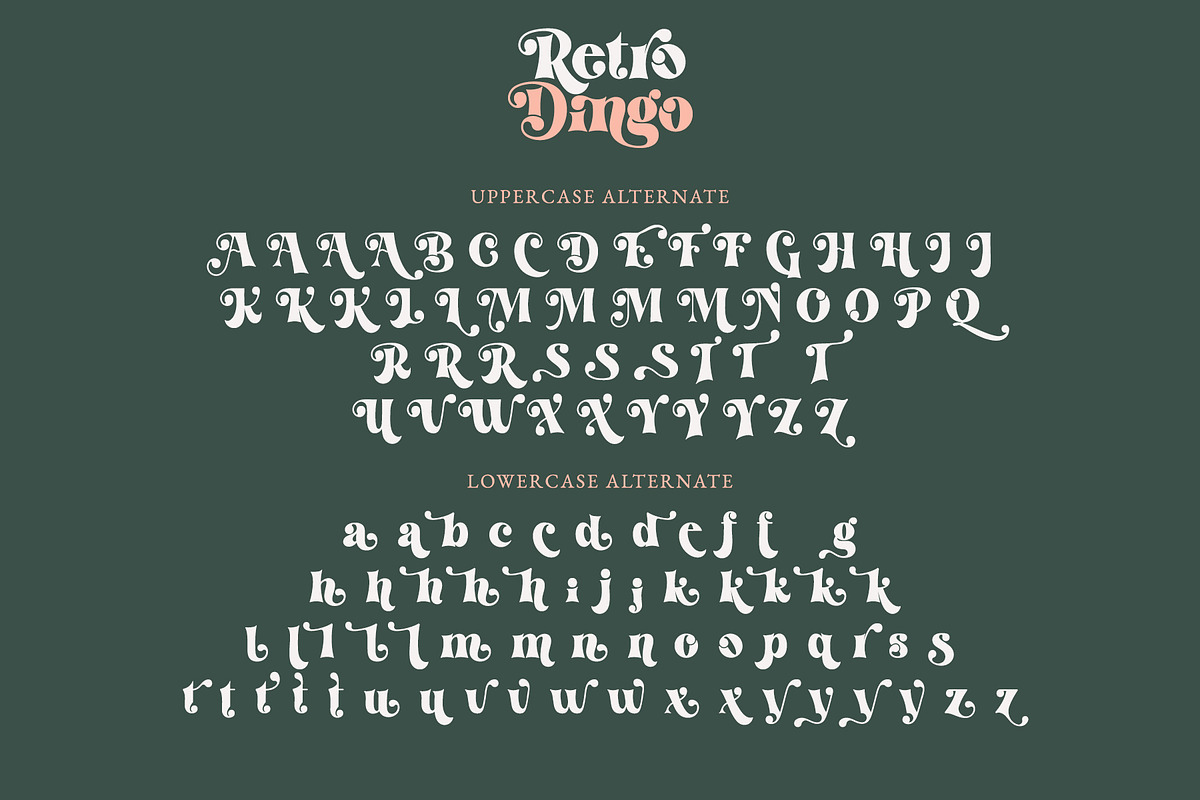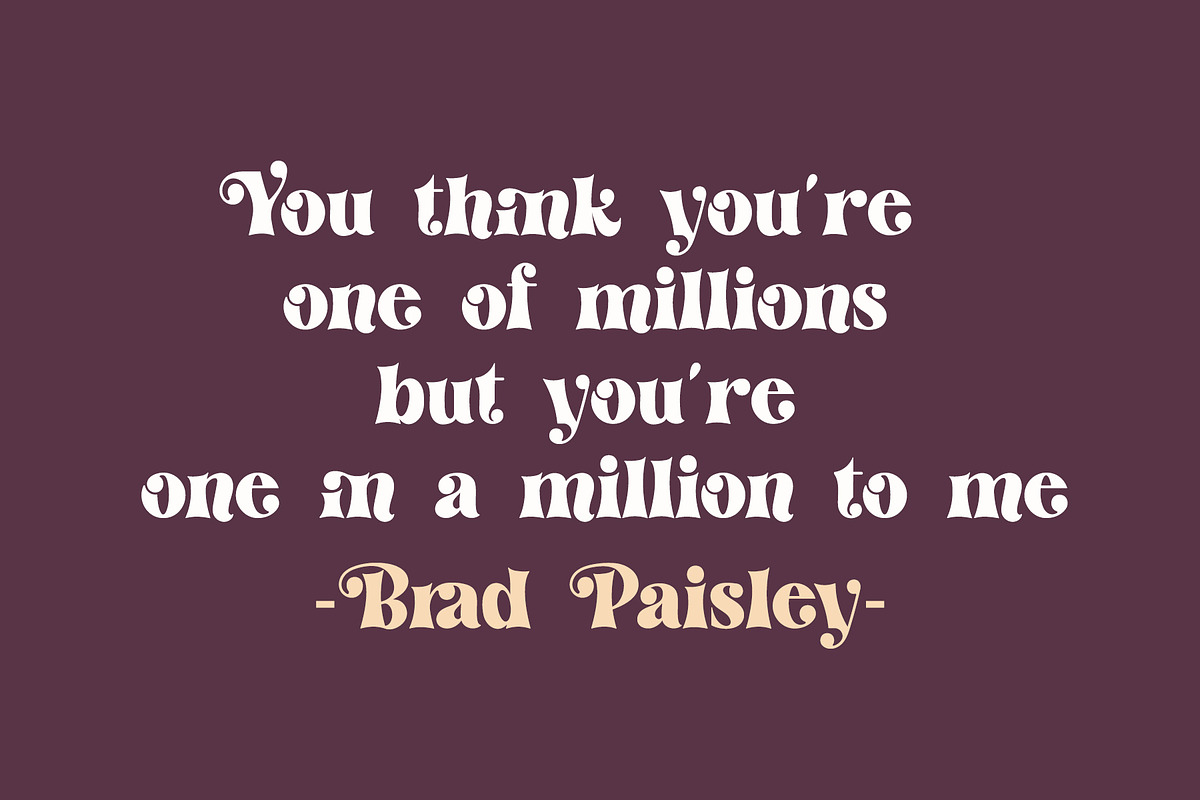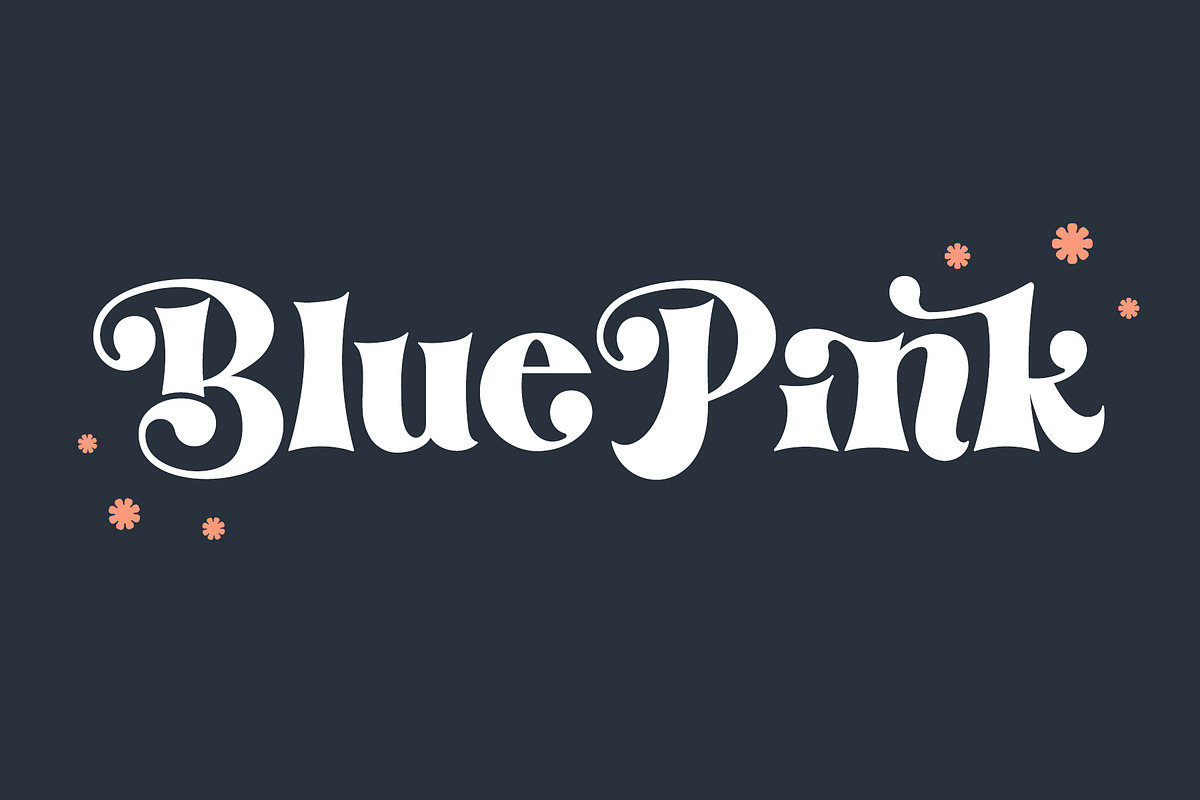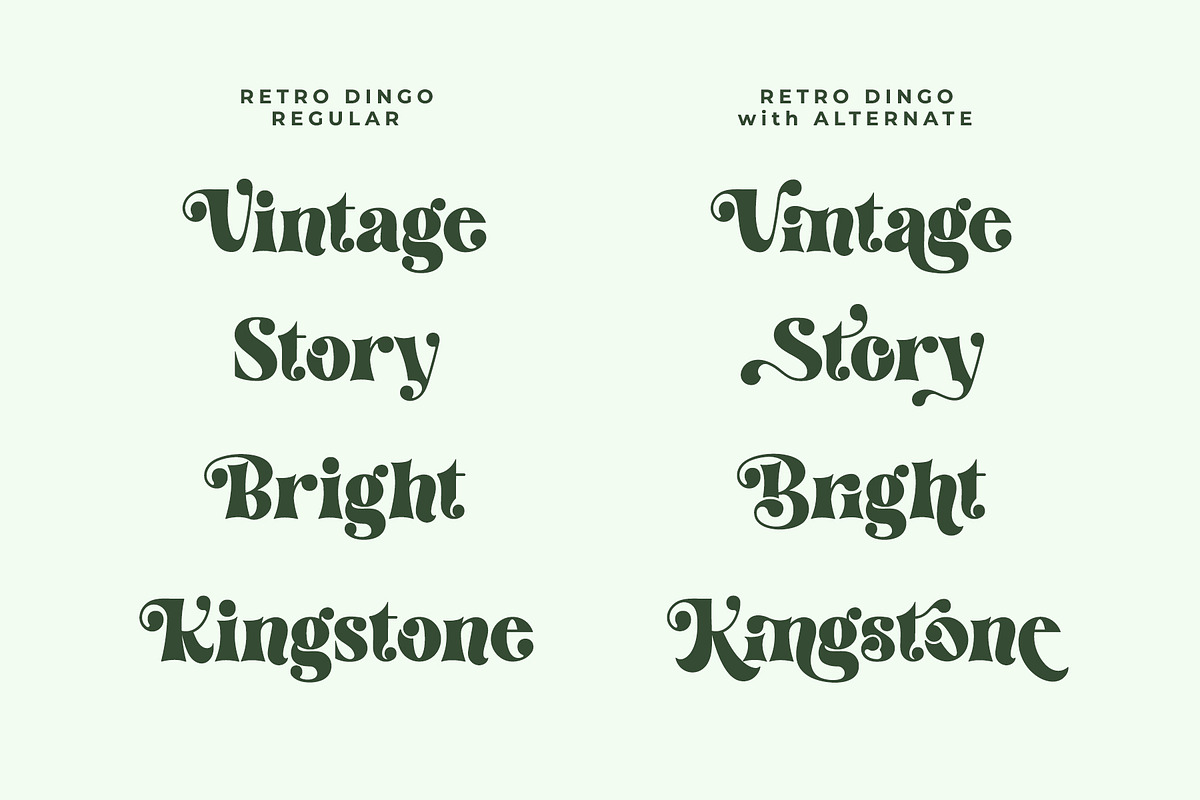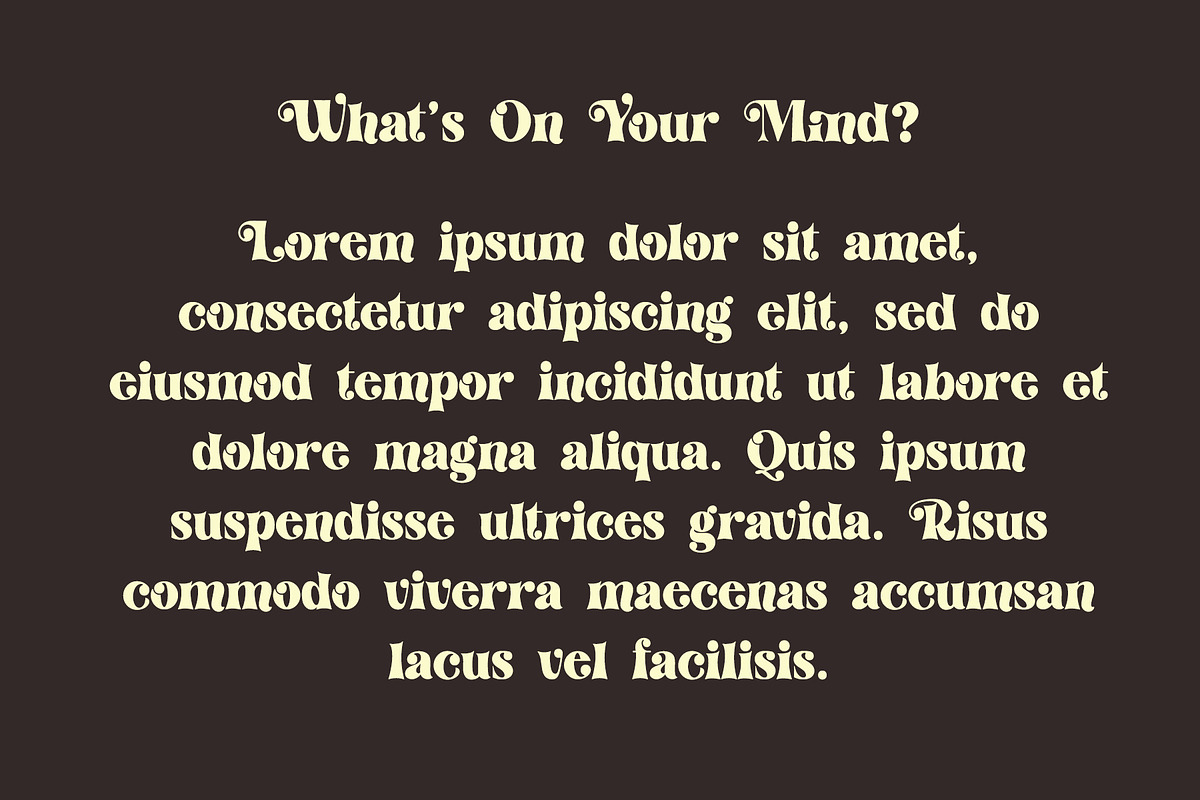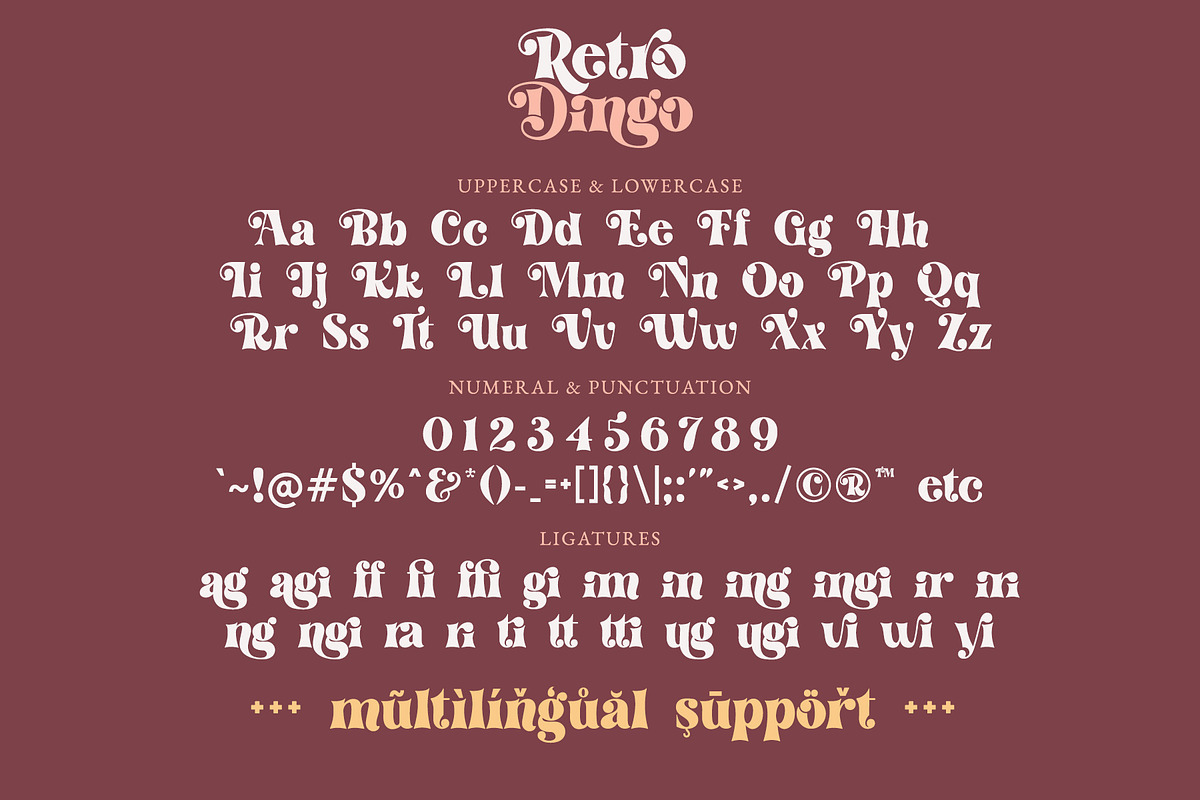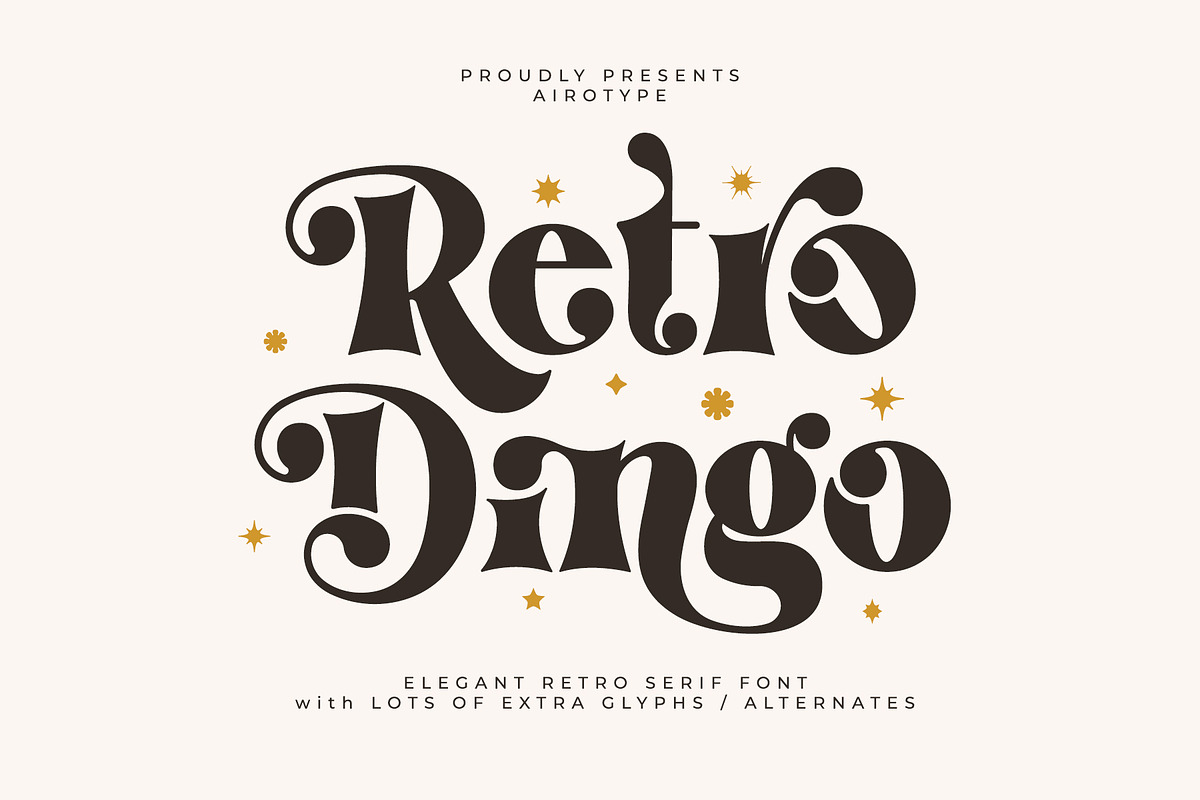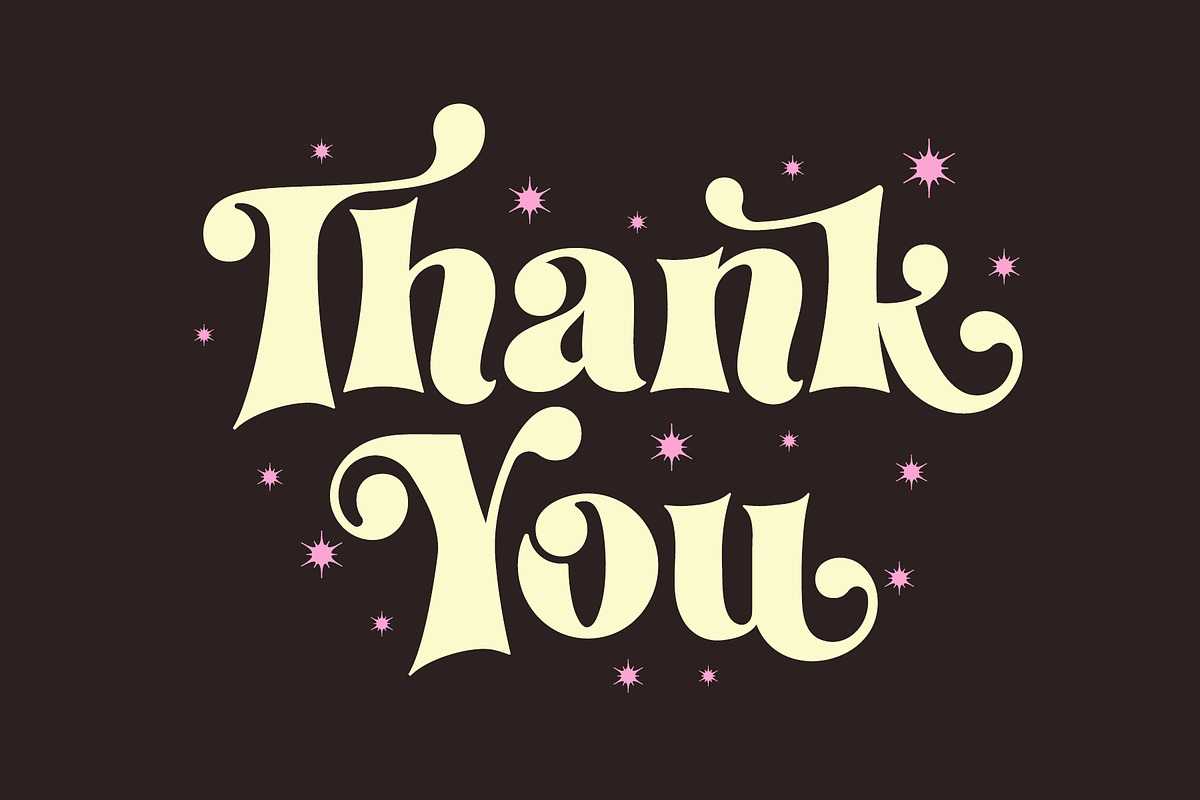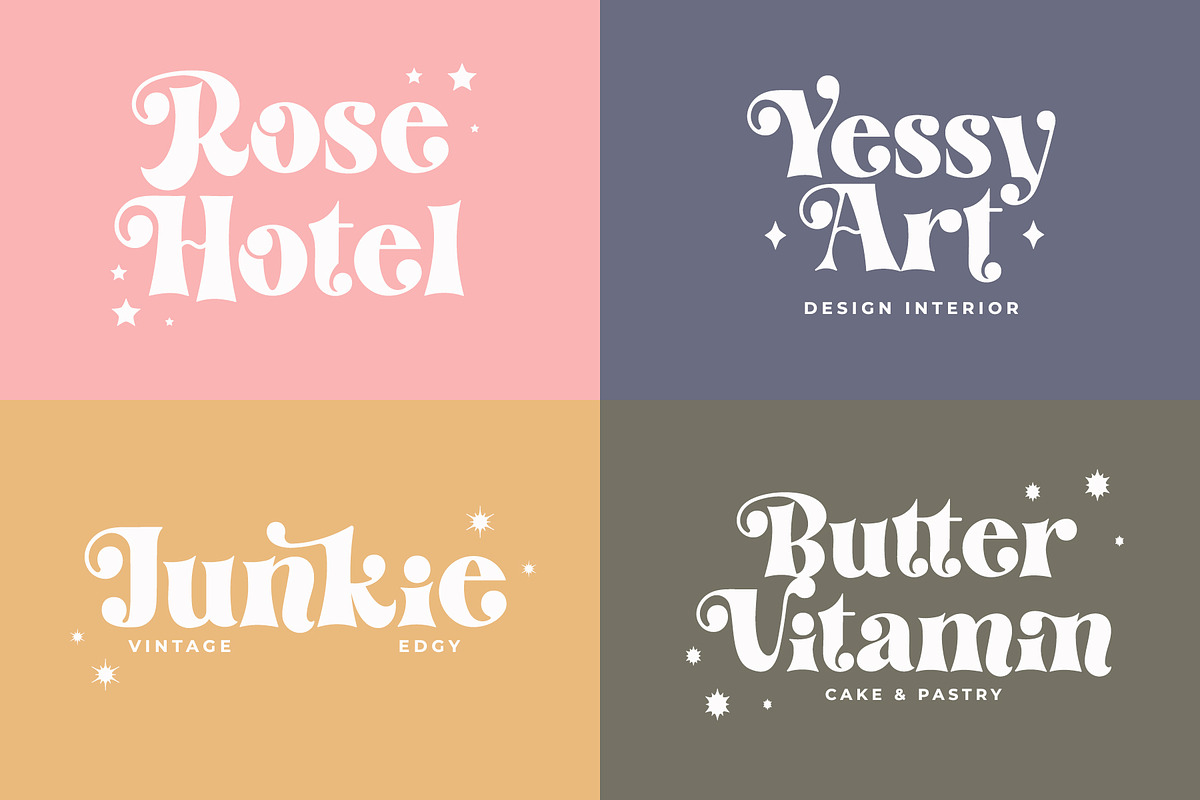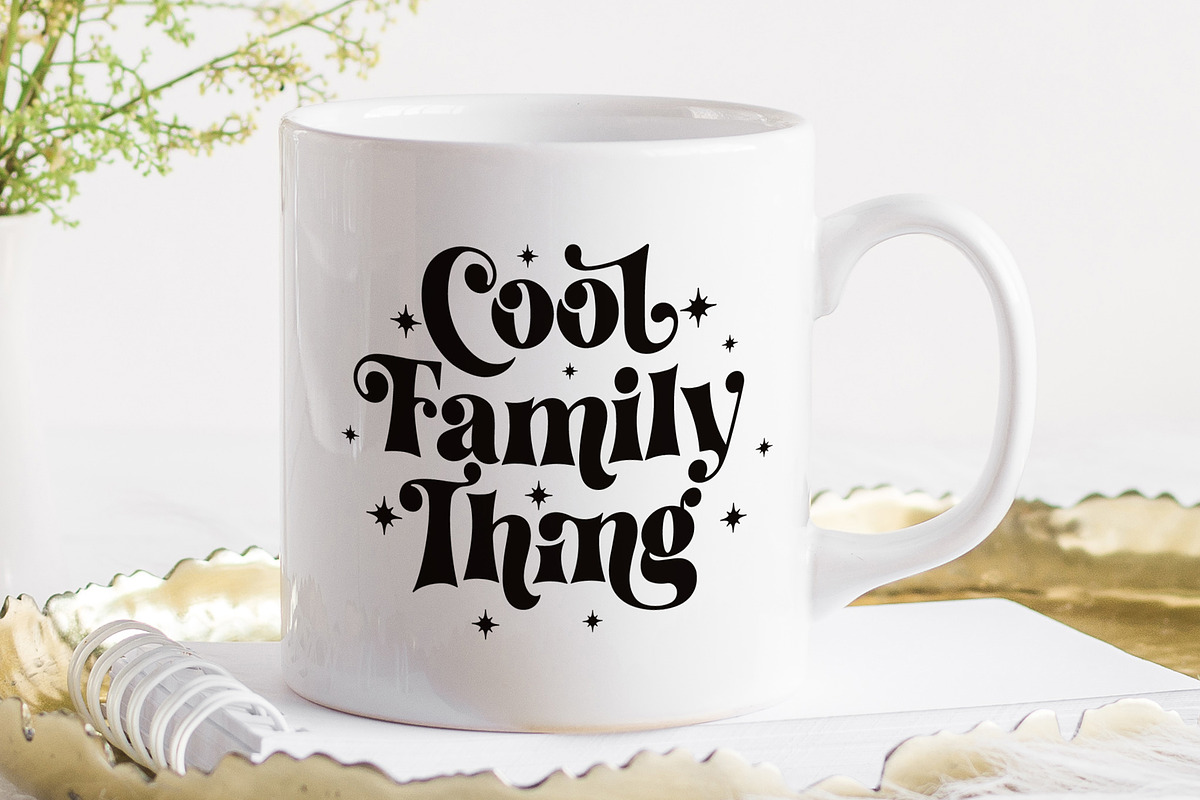
Retro Dingo - Modern Vintage Serif
Retro Dingo is modern and elegant serif font with vintage touch. It is quirky, pretty, and nostalgic.
This font is perfect font for any projects with modern vintage touch, such as logo, crafting, wedding invitation, branding, photography, sticker, sublimation, quotes, and many others.
- Uppercase and Lowercase (include PUA-Encoded extra glyphs)
- Most Multilingual Accent